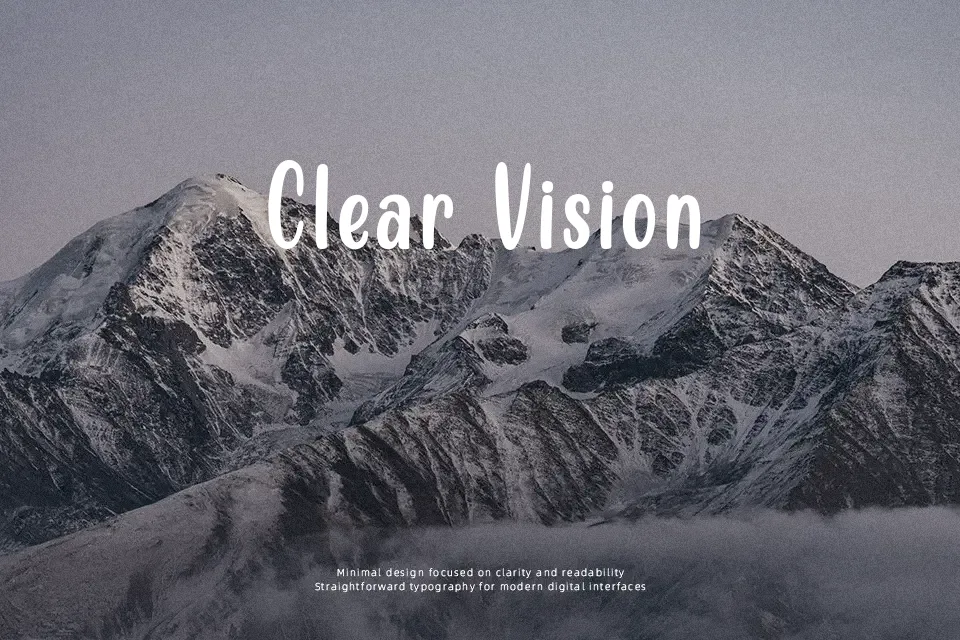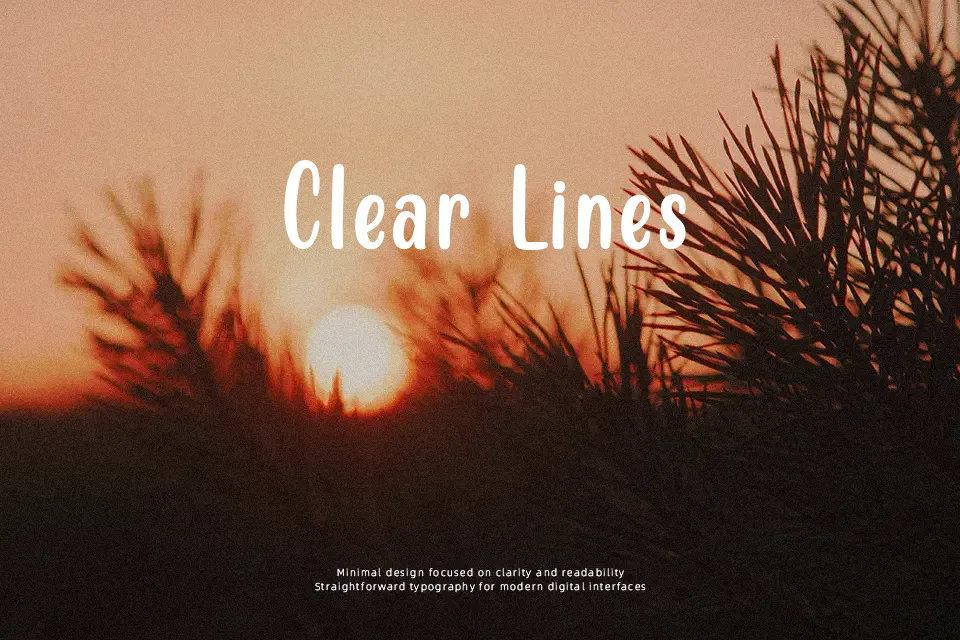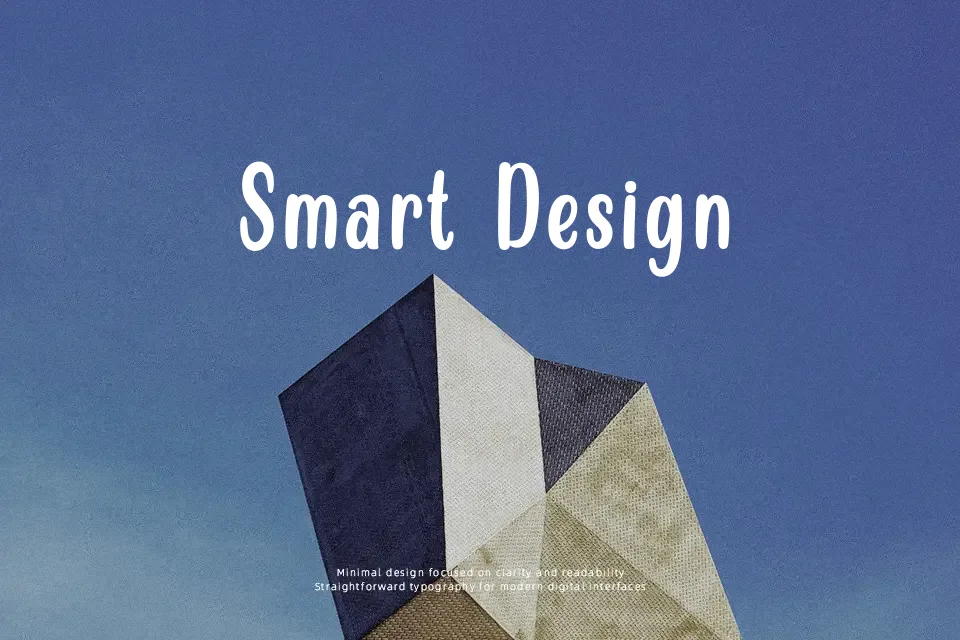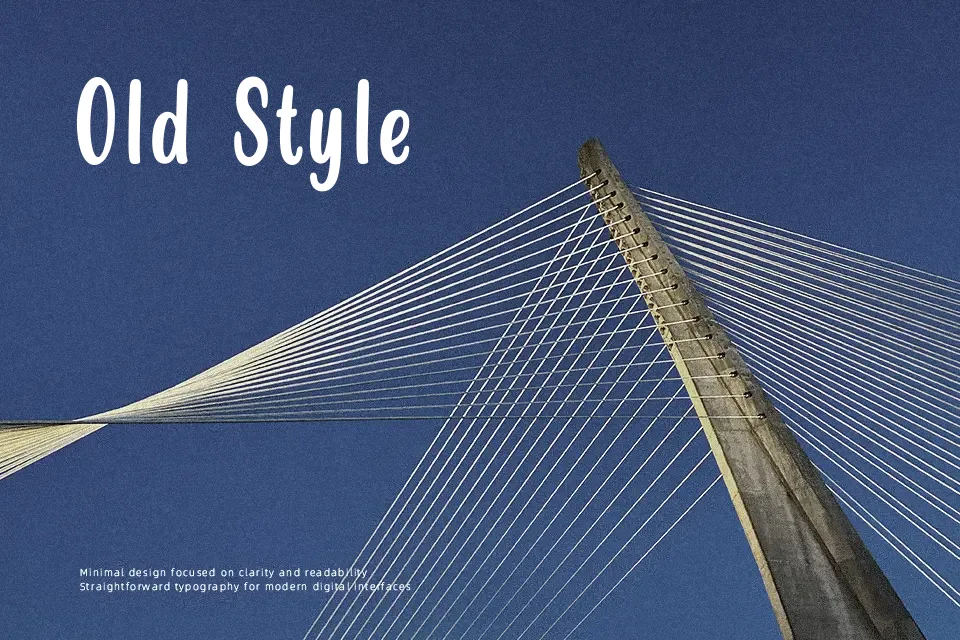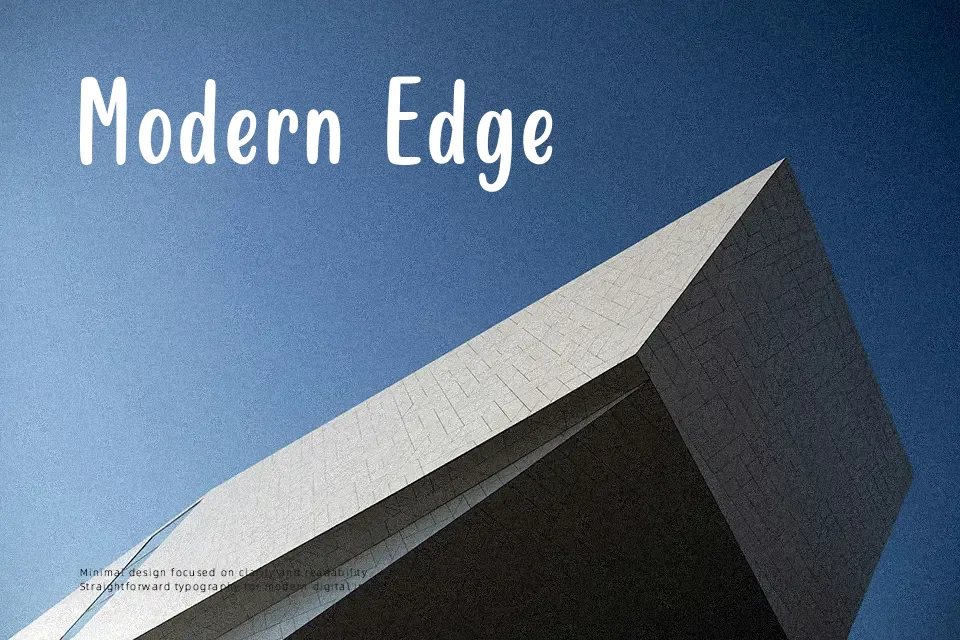
Almond Cookies Font
There’s something immediately disarming about Almond Cookies — the letterforms feel like they were sketched during a good-natured afternoon, all rounded edges and slightly uneven strokes that refuse to take themselves too seriously. It belongs to the Fancy/Comic category with a hand-drawn quality that reads as authentically casual rather than polished. The stroke weight is relatively light and consistent, giving it a thin, airy feel that works well on pastel backgrounds or in children’s content layouts. You’d reach for this when designing a classroom activity sheet header, a homemade treat packaging label, or a social media post targeting younger audiences. That said, it’s not built for legibility at small sizes — set below 18pt, the playful irregularities start working against readability. It also struggles in professional or corporate contexts where clean authority is expected. Think of it as closer in spirit to a casual schoolyard sketch than a designed typeface — that’s exactly where it earns its keep.
Best For:- children’s book cover titles and activity sheet headers
– handmade bakery or cookie packaging labels
– playful social media graphics and story overlays
– craft project branding for kids and school themes
Not Ideal For:- body text or any content set below 18pt
– corporate branding or formal business materials
– lengthy editorial layouts requiring sustained readability
– professional presentations or legal documents
Perfect for branding, kids, and packaging, with a creative and comic style.